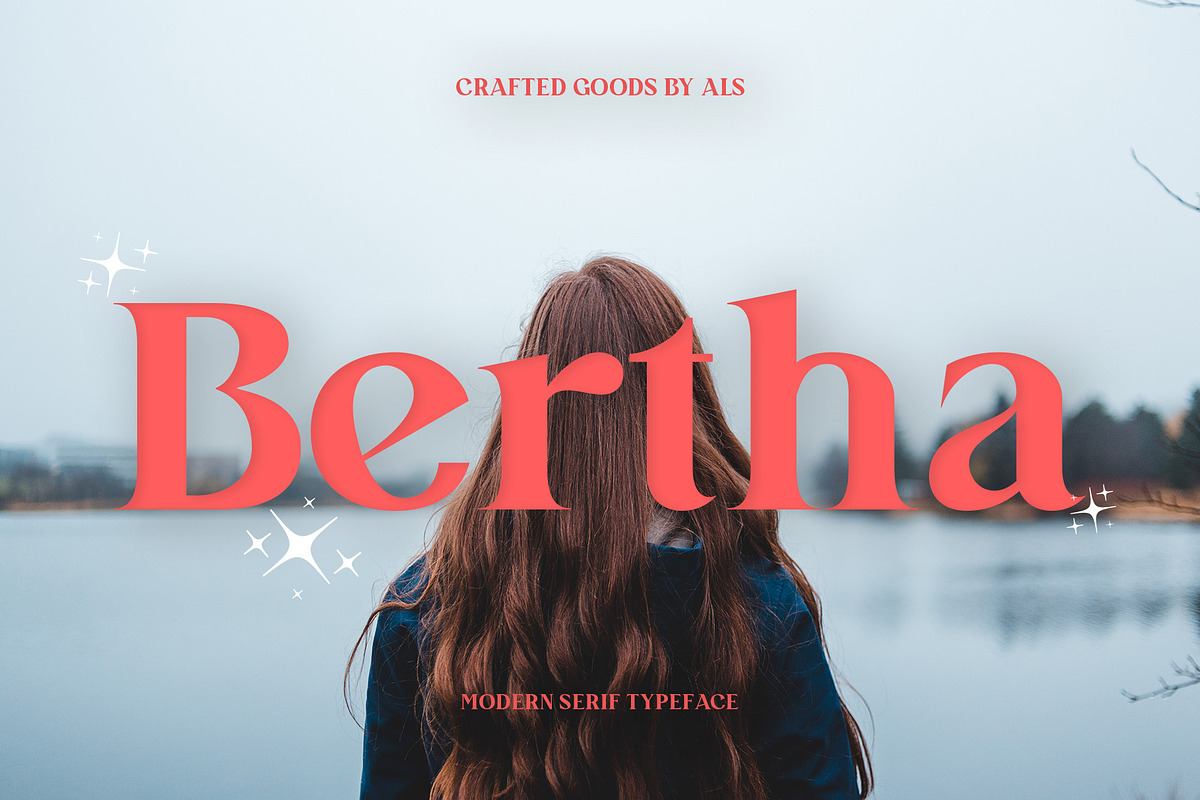
Bertha Serif Font Free Download is a refined and timeless typeface designed to bring sophistication and clarity to your designs. Perfect for logos, branding, editorial projects, and more, Bertha offers a modern yet classic look with its well-balanced letterforms and elegant serifs. Whether you're working on high-end projects or creating professional presentations, Bertha Serif Font adds a touch of elegance to any design.